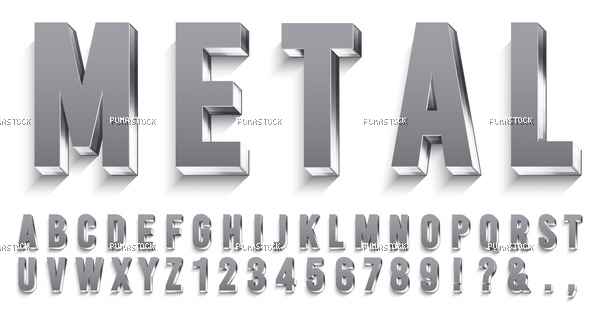
Realistic metal font. Shiny metallic letters with shadows, chrome text and metals alphabet. Credit cards steel abc and numbers, futuristic iron font. 3D vector isolated symbols set